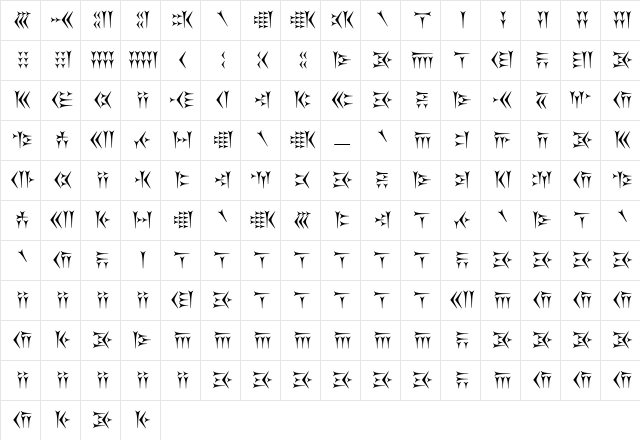
Kakoulookiam Regular
Regular · Fereydoun Rostam Fereydoun Rostam ·
DesignerFereydoun Rostam
Design Context for Kakoulookiam Typeface
Kakoulookiam is a composed and adaptable typeface that performs quietly and consistently across a wide range of design contexts.